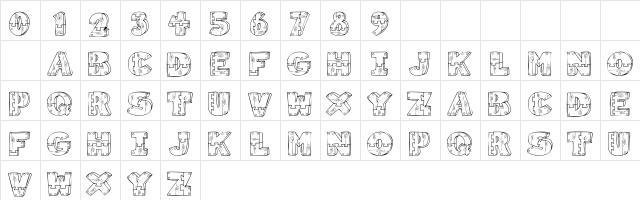
Complete 101! Wooden 'Bet Regular glyph index. Displaying only characters natively supported by 101! Wooden 'Bet Regular font.
101! Wooden 'Bet echoes the hand-painted signage and woodblock typography of the American frontier, with a warm, rugged personality.
Font Pairing: Combine 101! Wooden 'Bet with a simple slab or neutral sans - period-accurate companions reinforce the vintage feel without competing for attention.
Pro Tip: Use 101! Wooden 'Bet for short, impactful bursts of text - it shines in poster headlines and product names rather than extended copy.